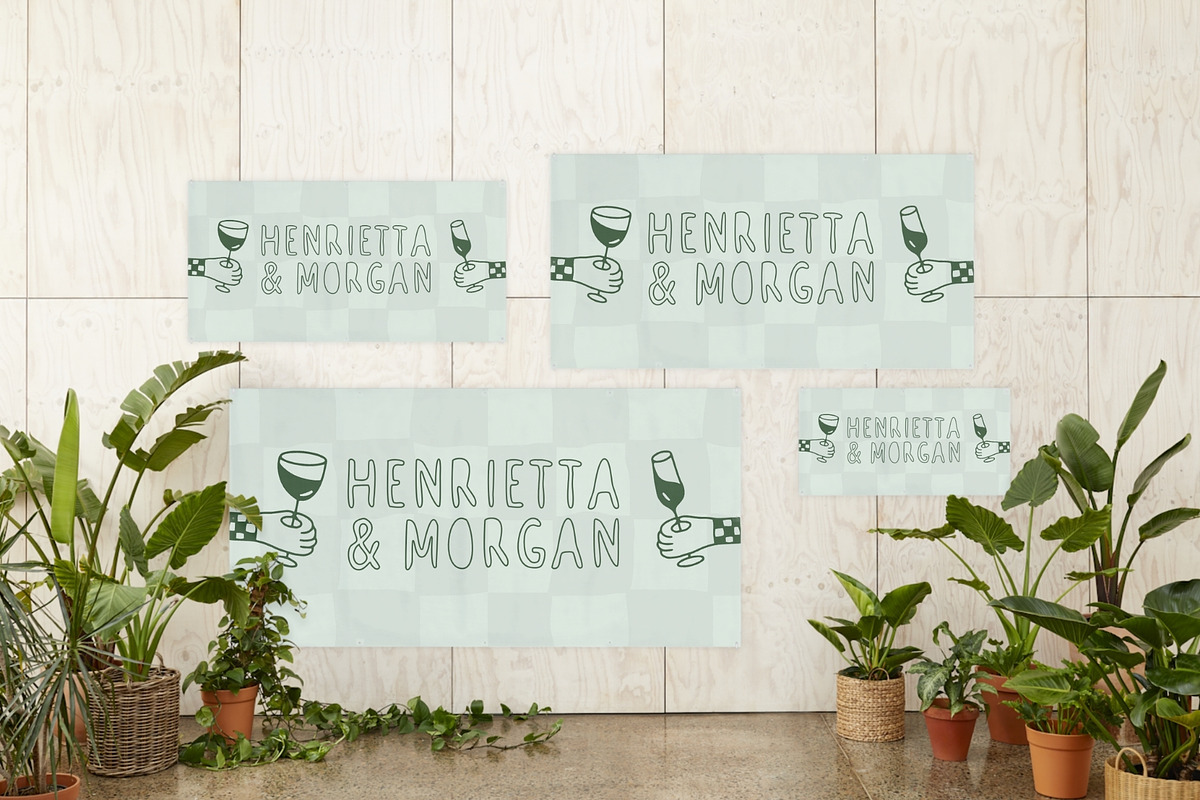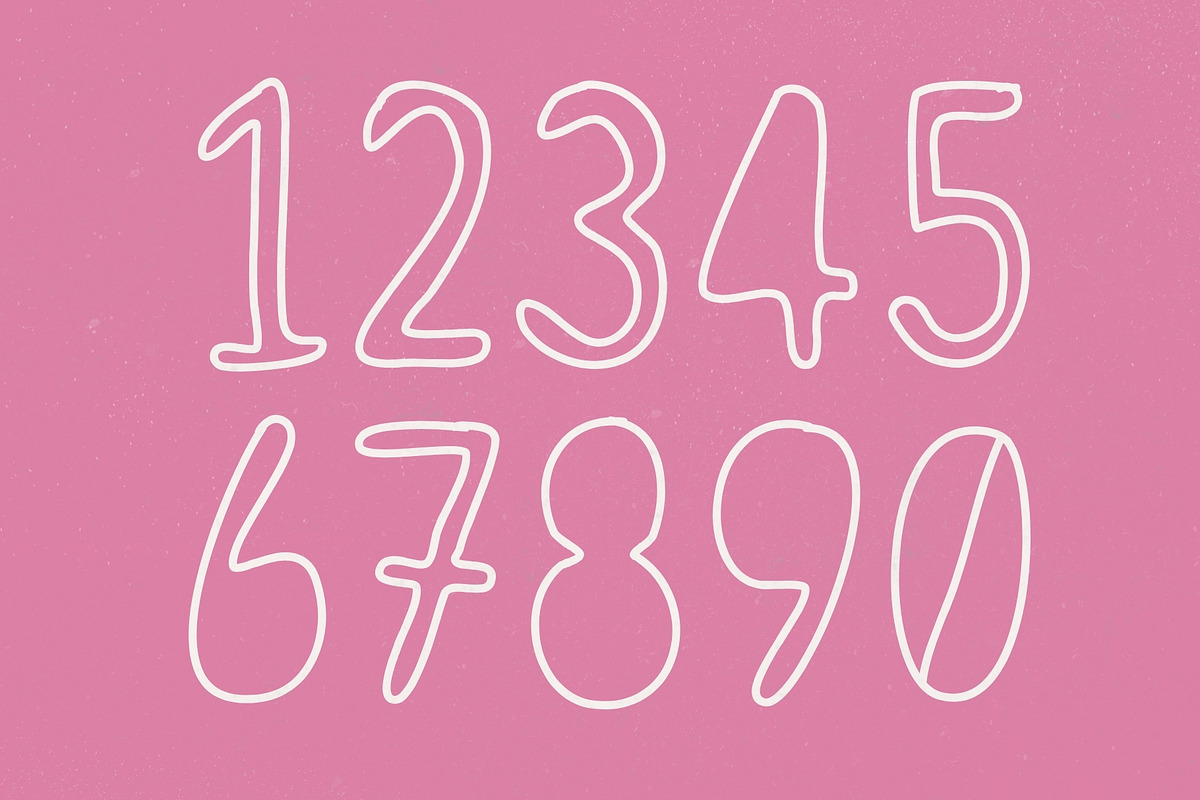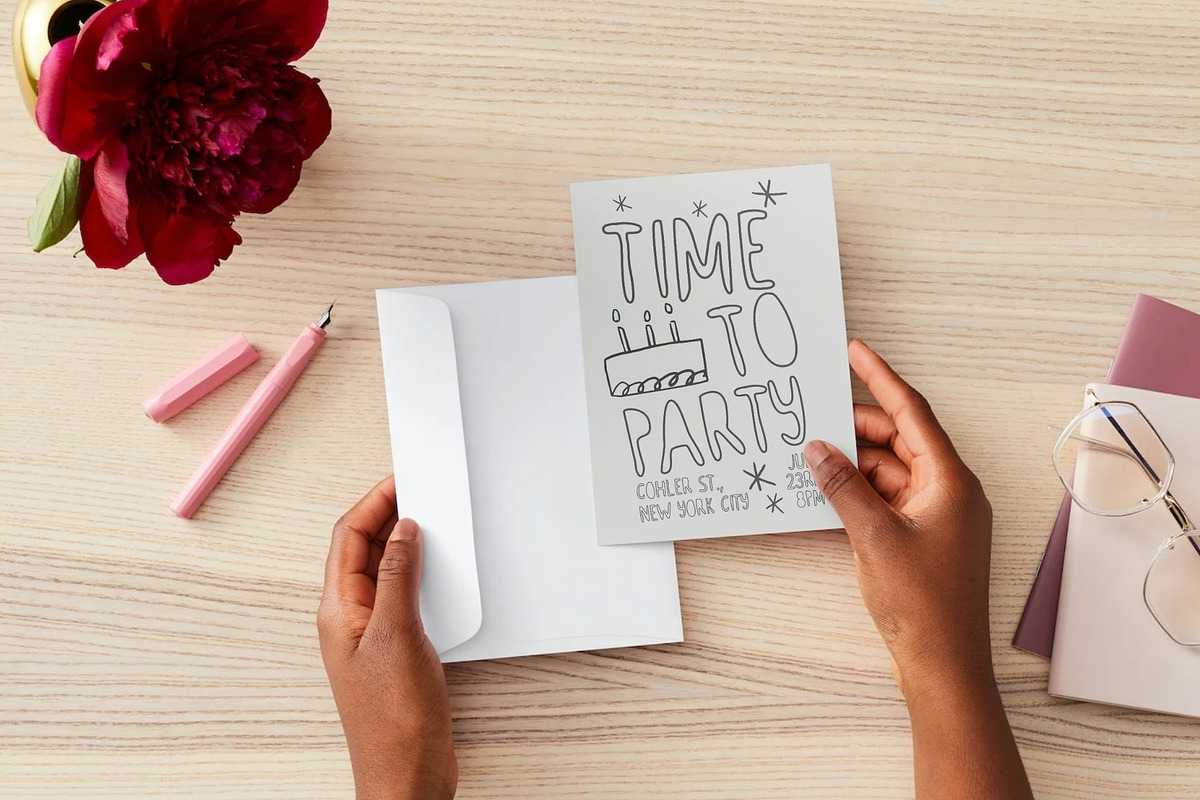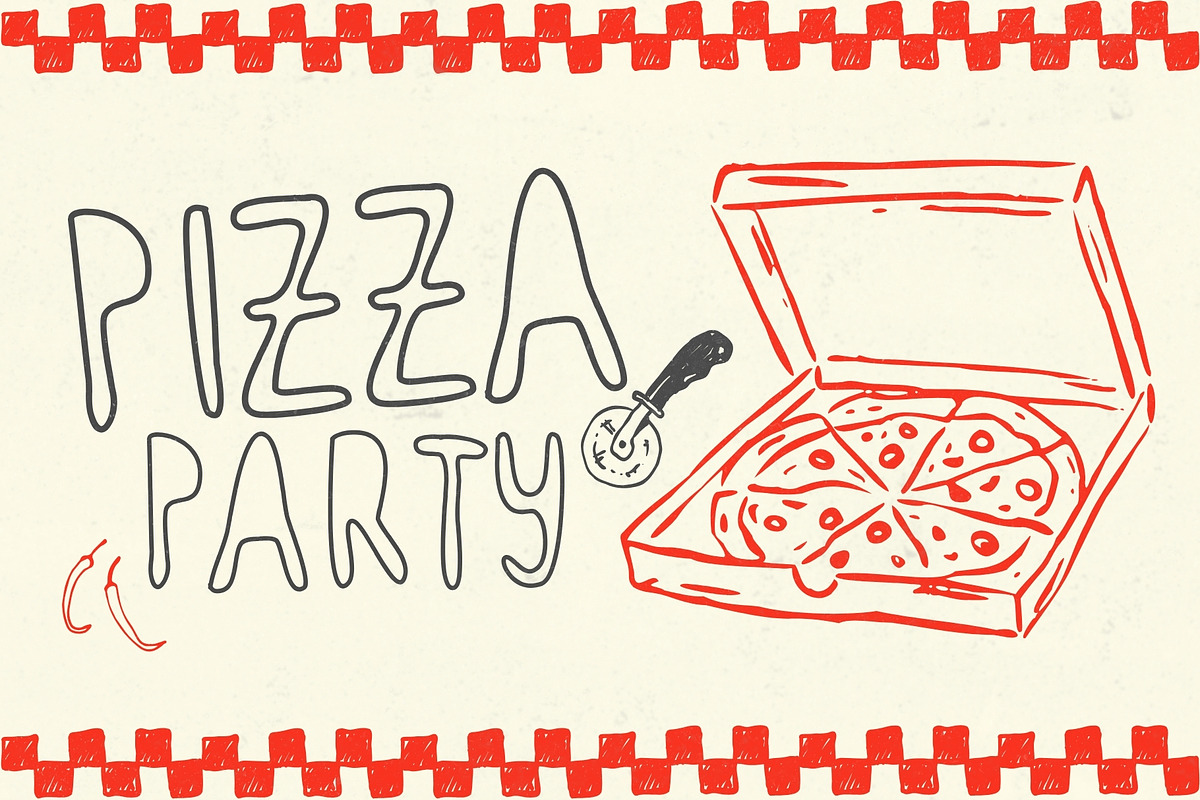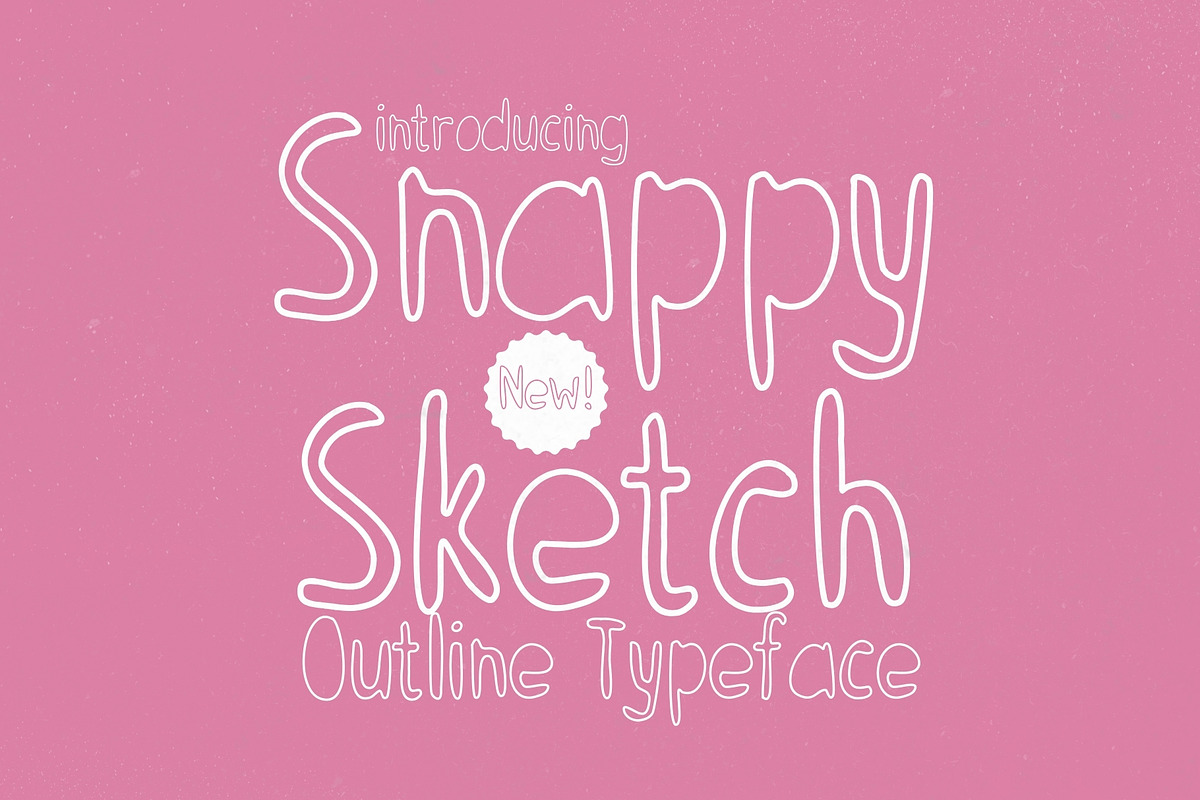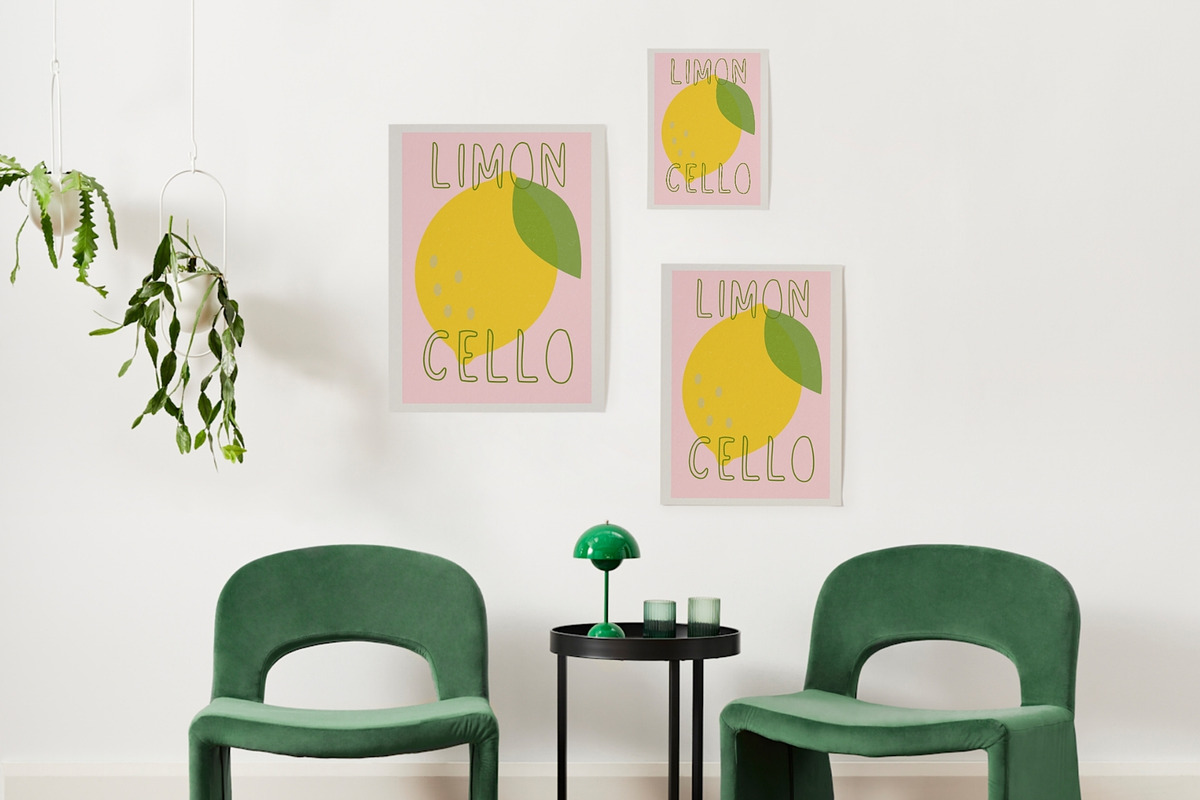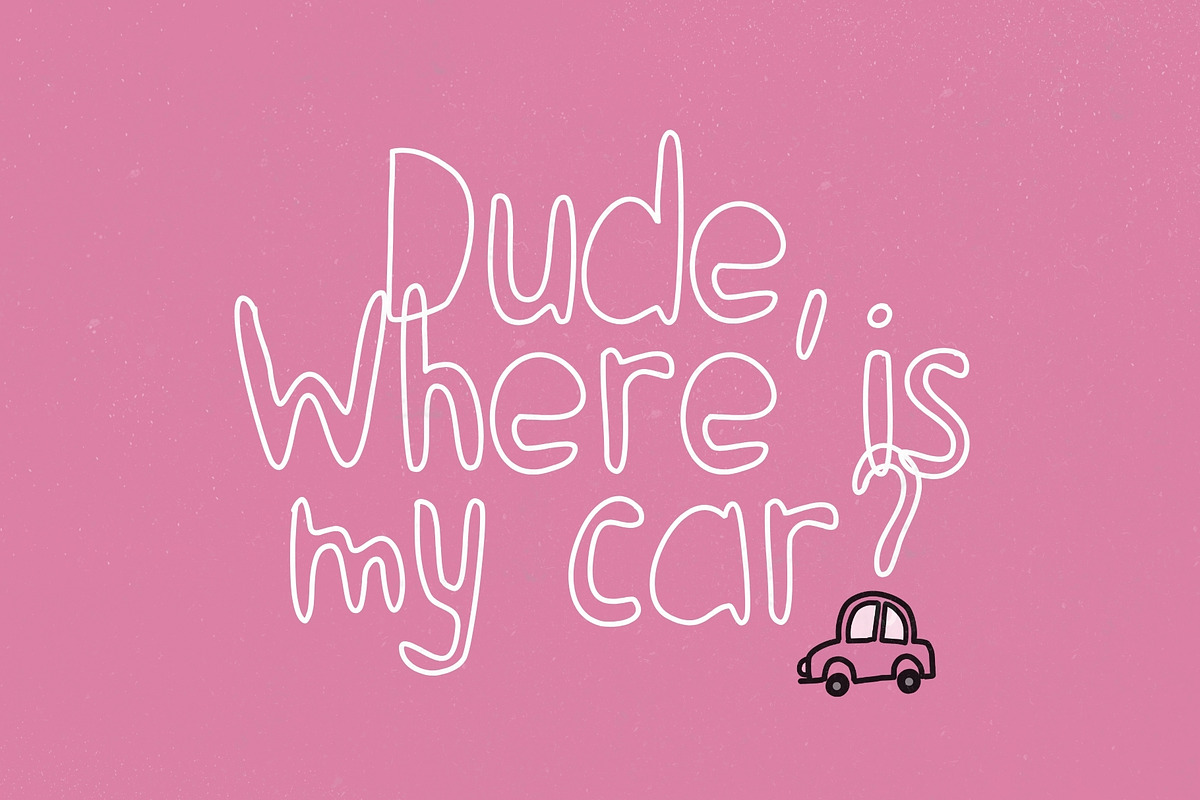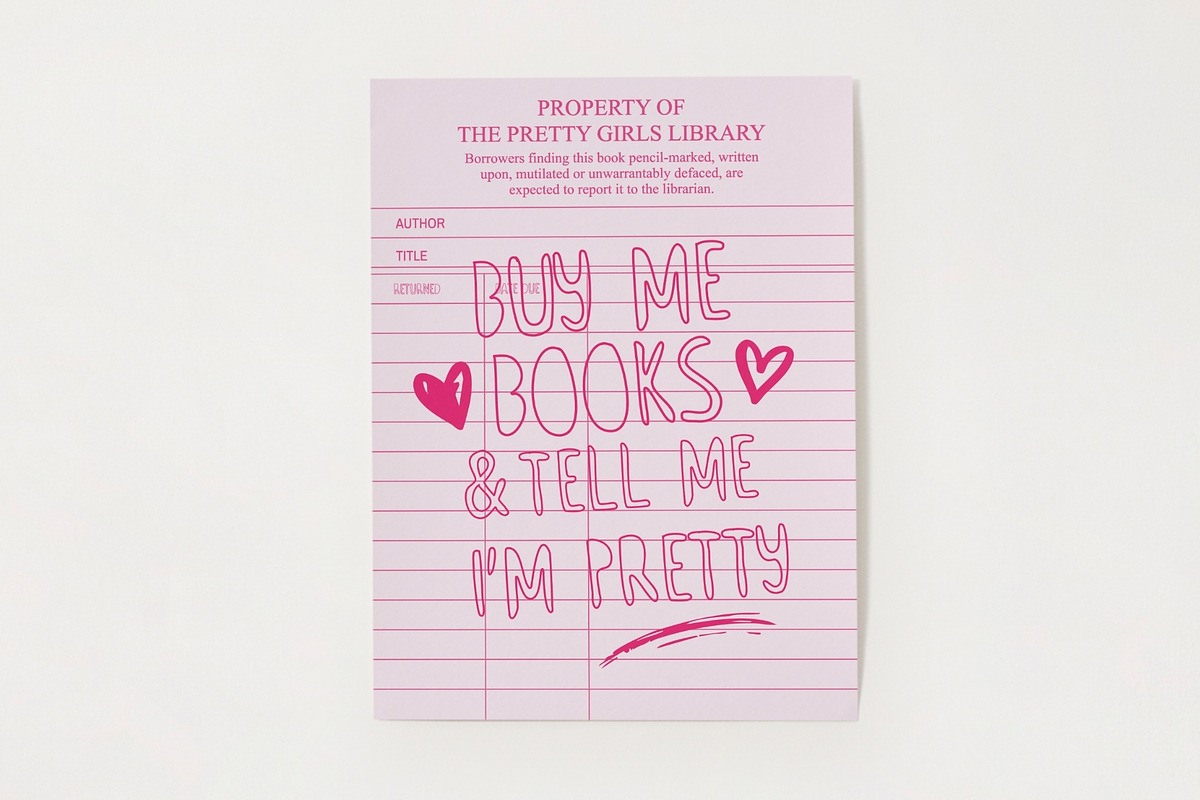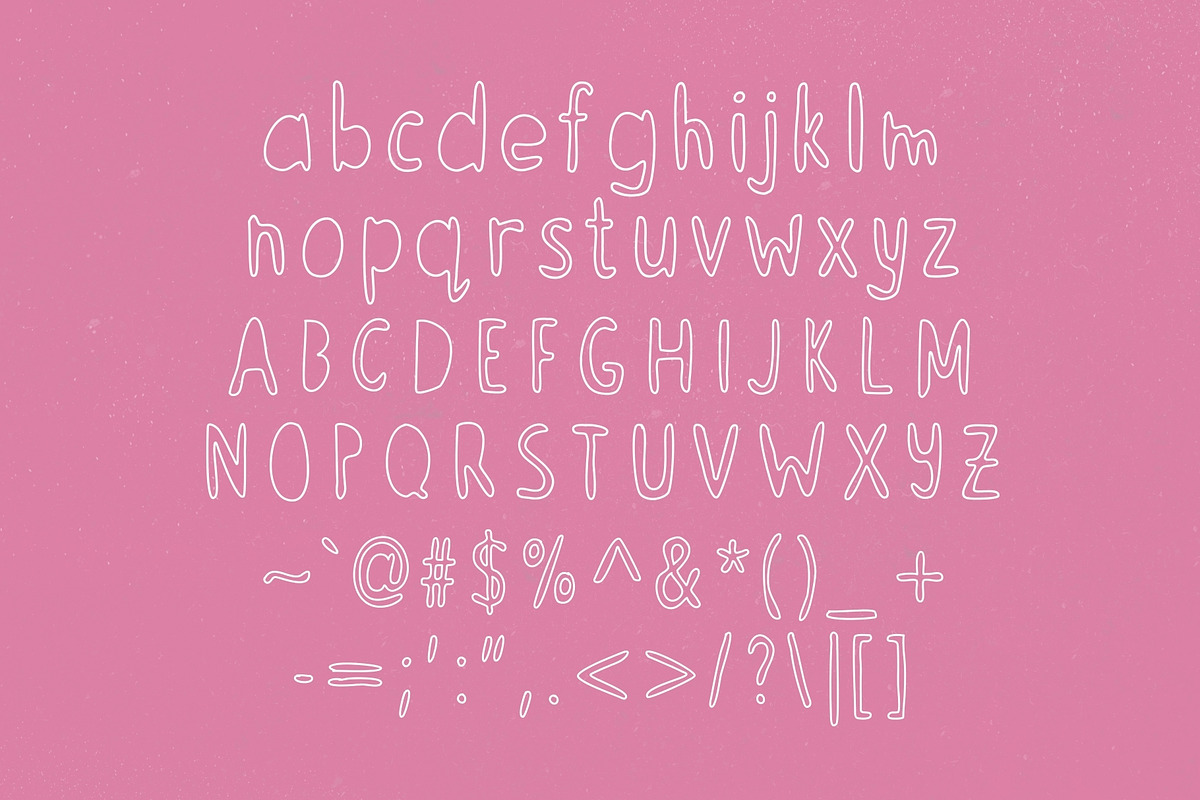
Snappy Sketch - Playful Outline
Introducing Snappy Sketch, a lively outline typeface designed to bring fun, creativity, and playful charm into your designs. With its unique hand-drawn shapes and expressive character, this font instantly grabs attention and adds a lighthearted personality to any project.
Snappy Sketch features both uppercase and lowercase letters, giving designers the flexibility to create engaging typography with a natural, sketch-inspired feel. Its quirky outlines and distinctive forms make every word feel energetic and full of character.
The playful structure of Snappy Sketch makes it perfect for projects that embrace a not-too-serious vibe. It pairs beautifully with illustrations and colorful compositions, helping designers create visuals that feel imaginative, friendly, and full of life.
Whether used for bold headlines or creative layouts, Snappy Sketch delivers typography that feels fun, expressive, and unforgettable.